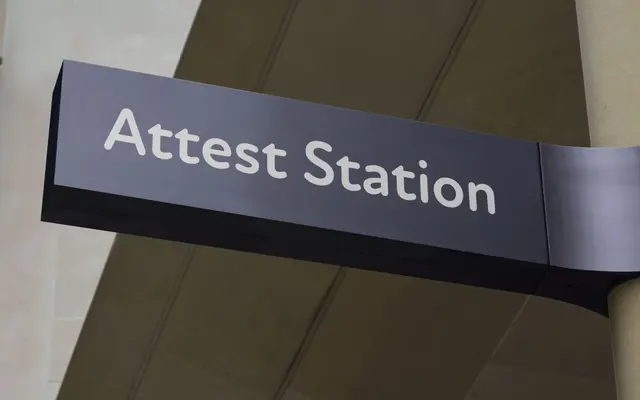
New Atten Round
A rounded humanist sans drawn from the measured authority of David Attenborough's voice, engineered for extended reading with accessibility features built in.
The design draws on the gentle, measured diction of Sir David Attenborough as an archetype for combining authority with warmth, aimed squarely at long-form text settings. Five weights from Book to Extra Bold are available in both upright and italic, with Stylistic Sets providing infant letterforms for children's publishing and a differentiating cap-I and lowercase-l pairing via an Accessibility Set. Newlyn claim it is the only rounded monolinear sans suited to extended reading, a bold position backed by its classical capital proportions and carefully tuned punctuation.
A rounded monolinear sans with humanist structure and classical capital proportions, designed explicitly for extended text reading comfort while retaining warmth and approachability.